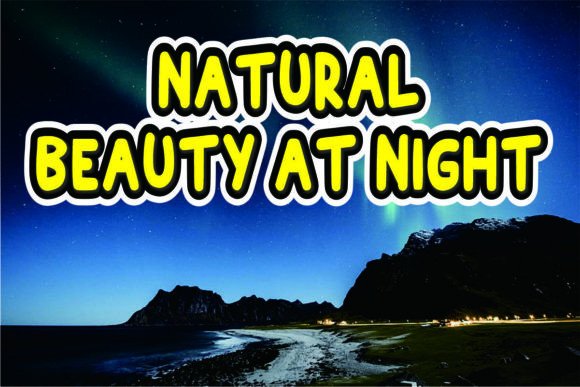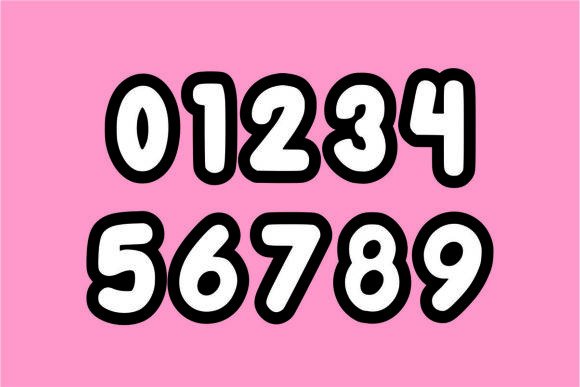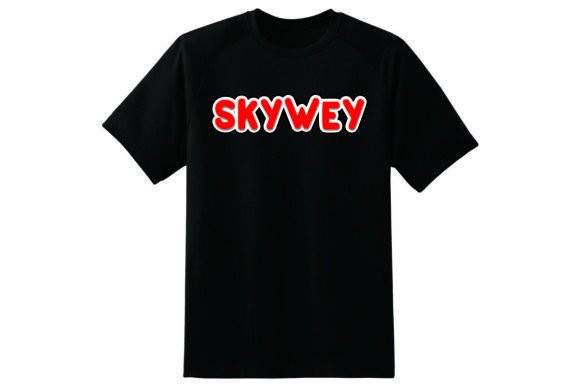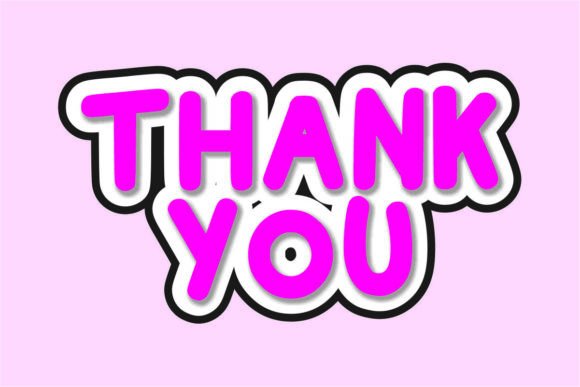
Introduction to Skywey Font
Skywey is a display font that is both childish and cute.
Its informal and casual style makes it a top choice for design creations It will look great on design and visual works such as product packaging, labels, logos and more.
Key Features of Skywey Font
Why Choose Skywey Font?